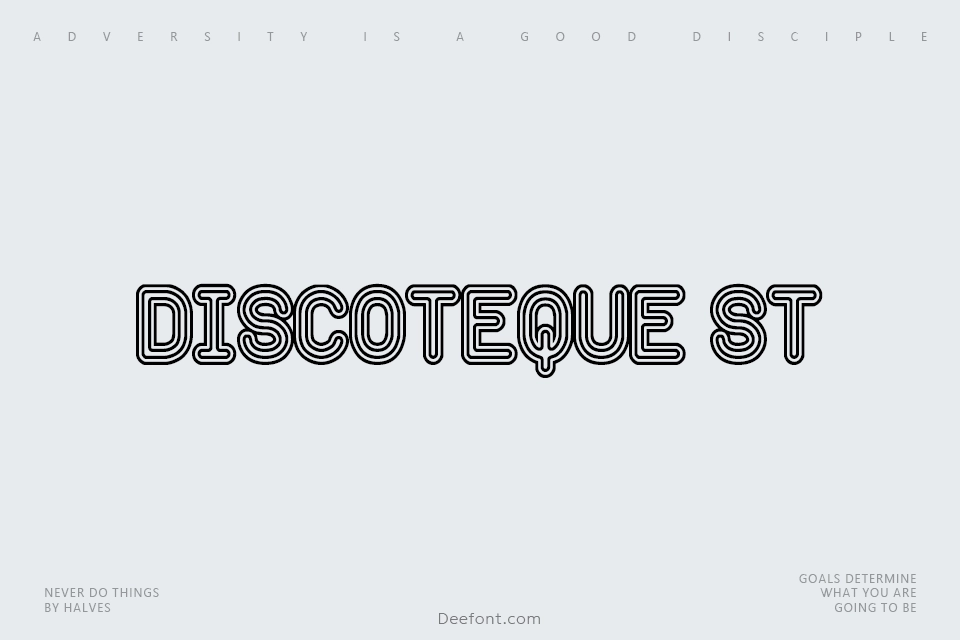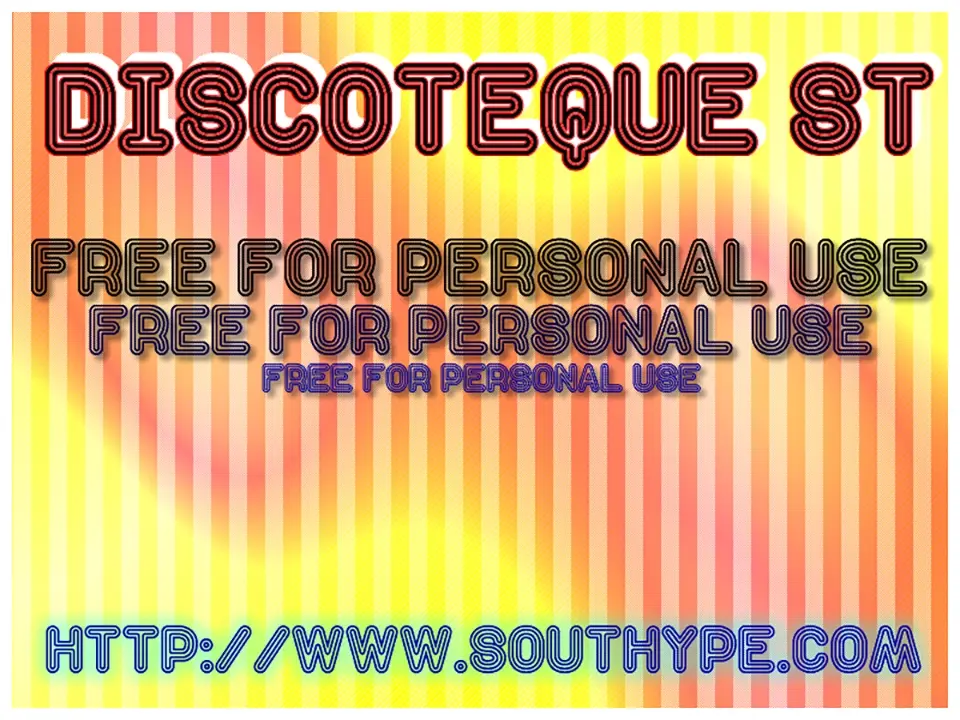
Discoteque St Font
Discoteque St is a bold, outlined display font featuring a distinct retro and disco-inspired aesthetic. With its multiple concentric lines creating a layered, three-dimensional effect, this typeface evokes the nostalgic charm of neon signs and 1970s disco culture. The uniform character design ensures consistency across uppercase letters, numbers, and special characters. Ideal for eye-catching headlines, logos, event flyers, and branding projects that demand a touch of vintage flair and playful energy.